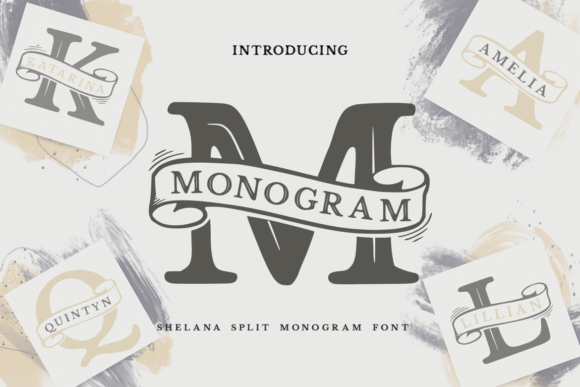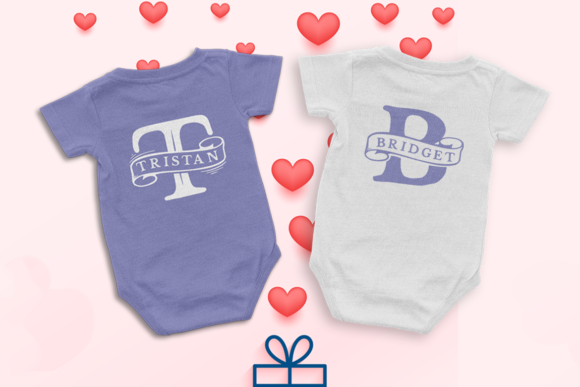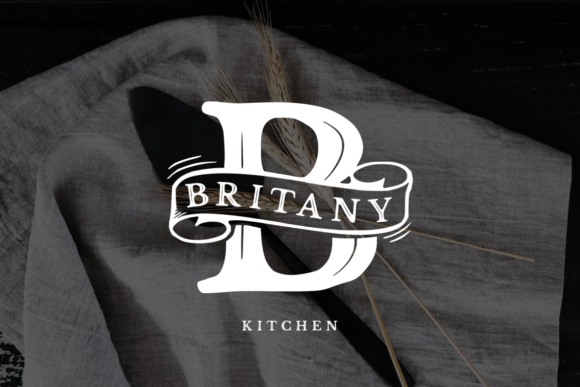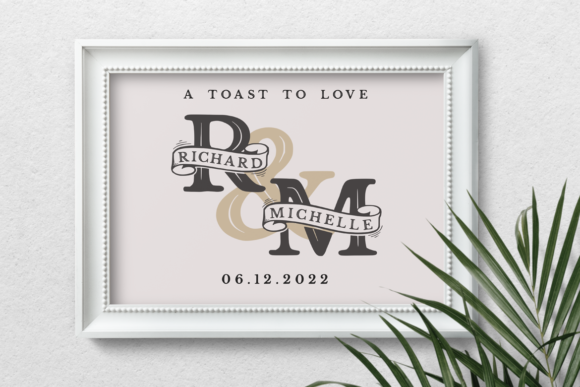
Shelana Split Monogram Font Font
About the Shelana Split Monogram Font Font
Experience the unique personality of Shelana Split Monogram Font Font, a font designed for impact. Shelana Split Monogram is a vintage styled and unique serif font. The font is suitable for any branding project like logo, t-shirt printing, sporting design, and many more. It will look outstanding in a wide range of contexts.
Shelana Split Monogram Font Font Usage Examples
Shelana Split Monogram Font Font Example